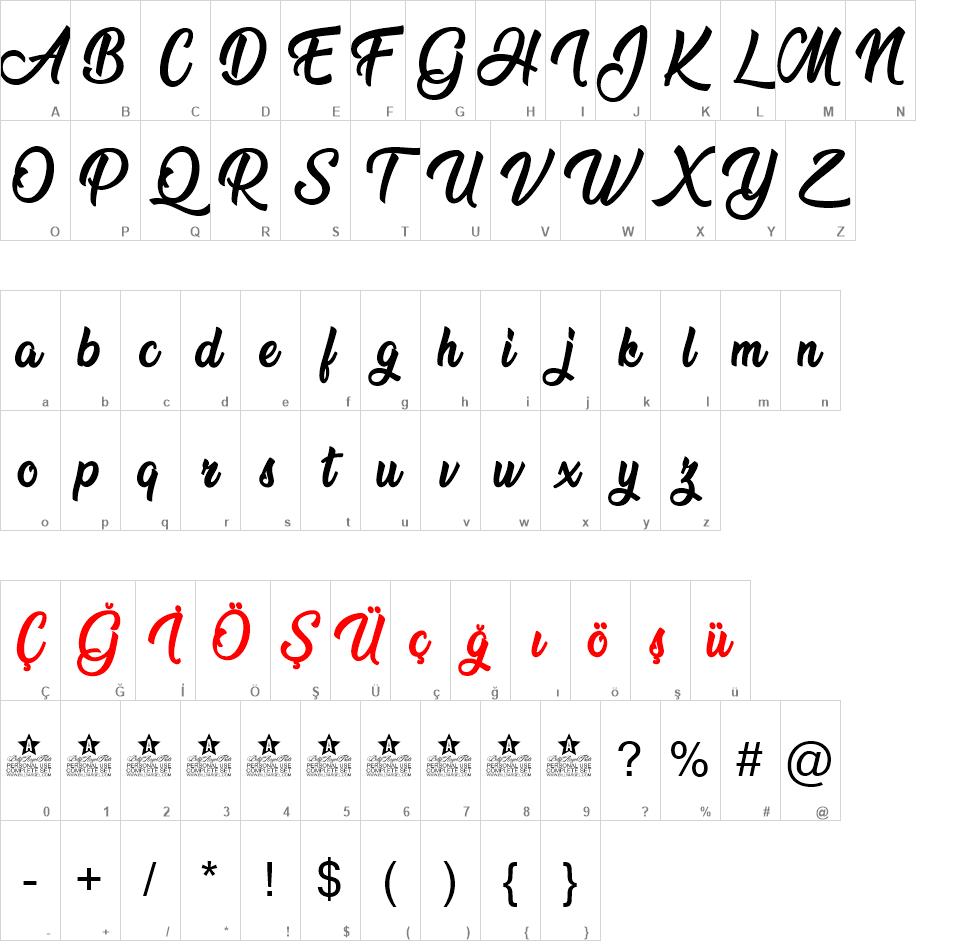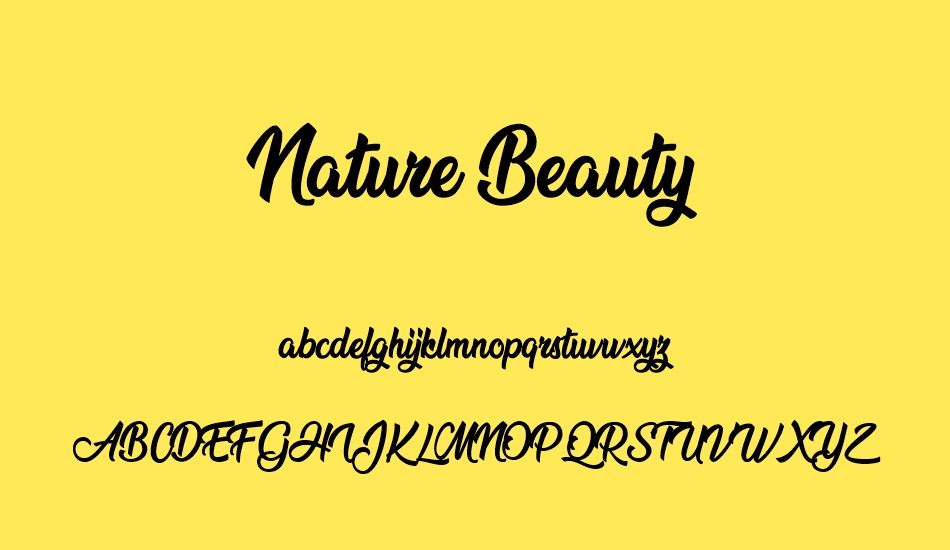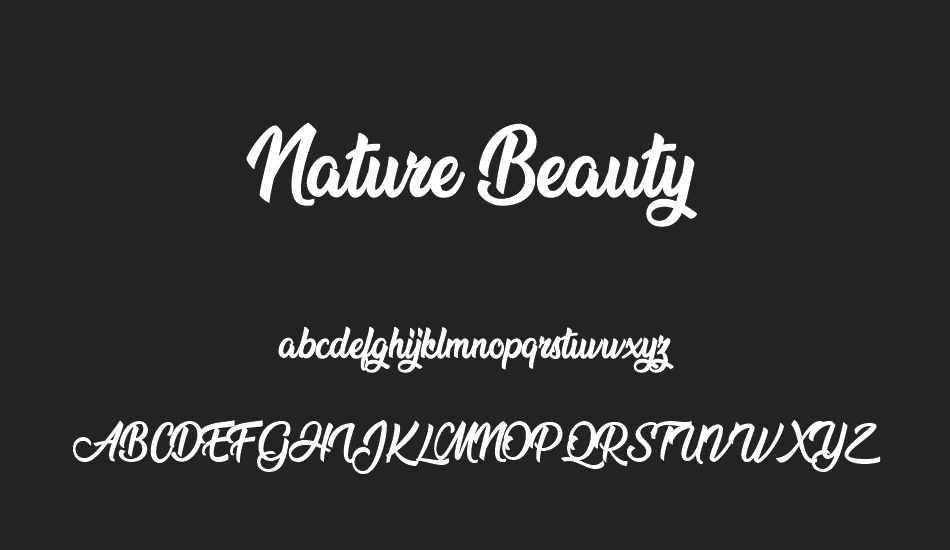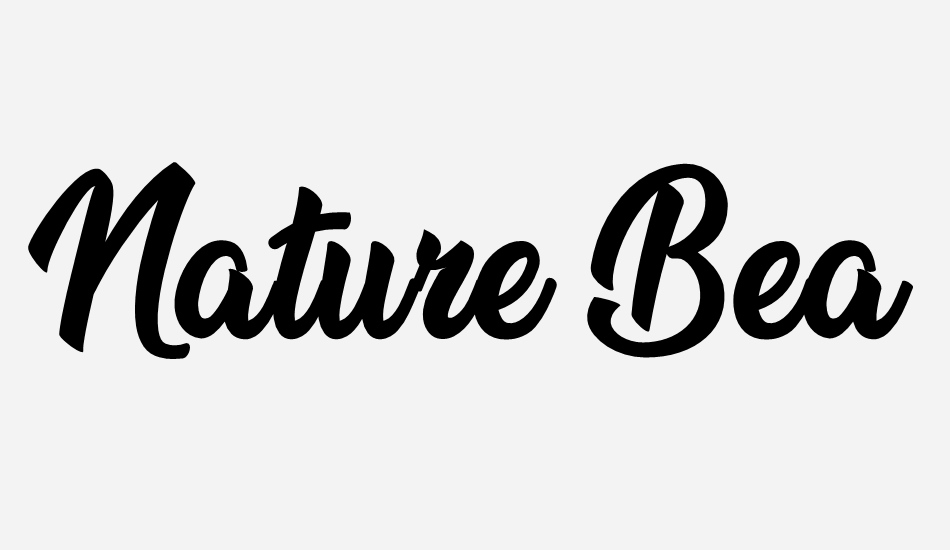
Nature Beauty Font
Nature Beauty Font - Web nature beauty script font is the free demo version that contains only uppercase, lowercase, and numeral. Web looking for nature fonts? Nature beauty is a modern and friendly handwritten font that has an elegant calligraphy style. Web immerse in the tranquility of nature with our free beauty, nature fonts. Nature beauty à € by billy argel fonts ®. Every font is free to download! Perfect for creative, serene designs. Web nature beauty font download. Web nature beauty font. Click to find the best 333 free fonts in the nature style.
Click to find the best 333 free fonts in the nature style. Web nature beauty script font is the free demo version that contains only uppercase, lowercase, and numeral. Web nature beauty font download. Nature beauty à € by billy argel fonts ®. Web nature beauty font. Nature beauty is a modern and friendly handwritten font that has an elegant calligraphy style. Every font is free to download! Web immerse in the tranquility of nature with our free beauty, nature fonts. Perfect for creative, serene designs. Web looking for nature fonts?
Web nature beauty font download. Nature beauty à € by billy argel fonts ®. Click to find the best 333 free fonts in the nature style. Every font is free to download! Perfect for creative, serene designs. Web nature beauty font. Nature beauty is a modern and friendly handwritten font that has an elegant calligraphy style. Web immerse in the tranquility of nature with our free beauty, nature fonts. Web looking for nature fonts? Web nature beauty script font is the free demo version that contains only uppercase, lowercase, and numeral.
Nature beauty is a modern and friendly handwritten font that has an elegant calligraphy style. Web nature beauty font. Click to find the best 333 free fonts in the nature style. Every font is free to download! Web immerse in the tranquility of nature with our free beauty, nature fonts.
Nature beauty à € by billy argel fonts ®. Web looking for nature fonts? Web immerse in the tranquility of nature with our free beauty, nature fonts. Web nature beauty font download. Click to find the best 333 free fonts in the nature style.
Nature beauty is a modern and friendly handwritten font that has an elegant calligraphy style. Web nature beauty font. Perfect for creative, serene designs. Web nature beauty font download. Nature beauty à € by billy argel fonts ®.
Web looking for nature fonts? Perfect for creative, serene designs. Nature beauty is a modern and friendly handwritten font that has an elegant calligraphy style. Web nature beauty font. Web nature beauty script font is the free demo version that contains only uppercase, lowercase, and numeral.
Web nature beauty font download. Web immerse in the tranquility of nature with our free beauty, nature fonts. Perfect for creative, serene designs. Nature beauty à € by billy argel fonts ®. Web nature beauty font.
Every font is free to download! Web looking for nature fonts? Nature beauty is a modern and friendly handwritten font that has an elegant calligraphy style. Click to find the best 333 free fonts in the nature style. Web nature beauty font.
Nature Beauty Personal Use Windows font free for Personal
Web nature beauty font. Web nature beauty font download. Nature beauty à € by billy argel fonts ®. Click to find the best 333 free fonts in the nature style. Web nature beauty script font is the free demo version that contains only uppercase, lowercase, and numeral.
Natural Beauty Font Billy Argel Fonts FontSpace
Nature beauty is a modern and friendly handwritten font that has an elegant calligraphy style. Web nature beauty script font is the free demo version that contains only uppercase, lowercase, and numeral. Perfect for creative, serene designs. Click to find the best 333 free fonts in the nature style. Every font is free to download!
40+ Best Nature Inspired Fonts (Earthy Fonts to Download) Envato Tuts+
Web nature beauty font download. Web looking for nature fonts? Web nature beauty font. Web immerse in the tranquility of nature with our free beauty, nature fonts. Nature beauty is a modern and friendly handwritten font that has an elegant calligraphy style.
Web Nature Beauty Font.
Web nature beauty font download. Nature beauty à € by billy argel fonts ®. Web nature beauty script font is the free demo version that contains only uppercase, lowercase, and numeral. Nature beauty is a modern and friendly handwritten font that has an elegant calligraphy style.